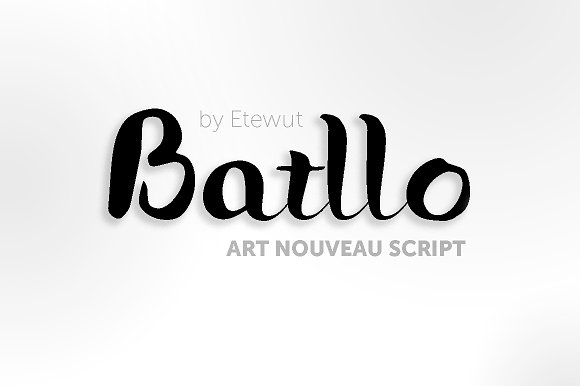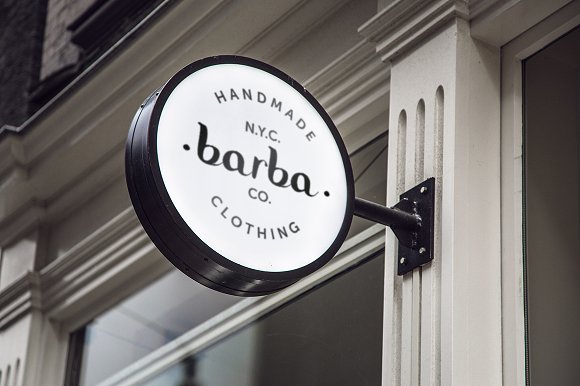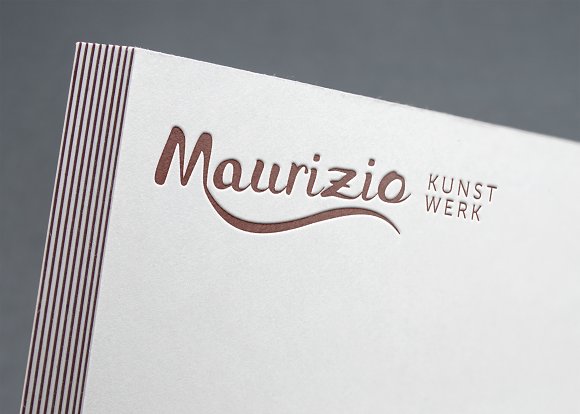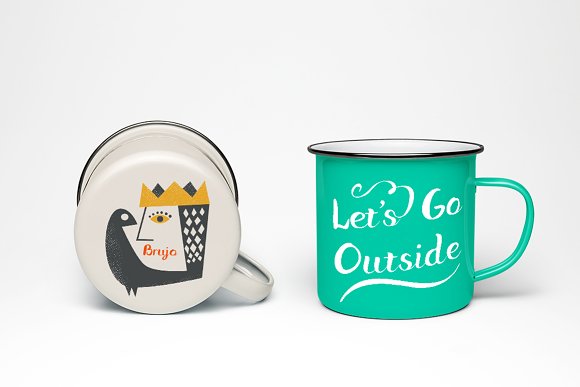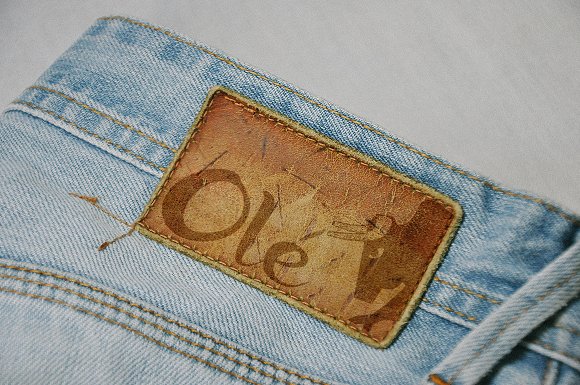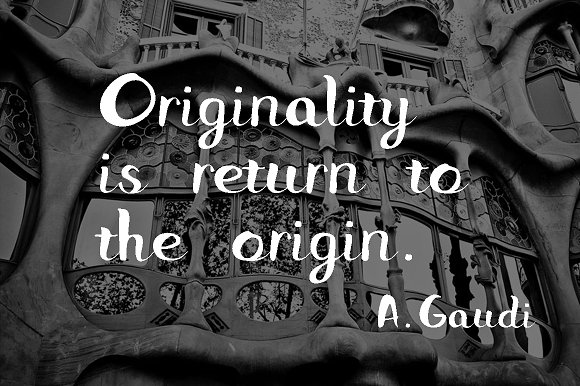
Batllo Font
About Batllo Font
Battllo is an art nouveau script font created by Etewut.
The Battllo font draws it’s inspiration from the architecture by Antonia Gaudi. The Battllo font is created after visiting Casa Battllo, one of the Gaudi museums. In Casa Battllo almost everything is designed like animals, bones or plants from Catalonia.
The philosophy as I understood it was that there is no wrong you, only a proper place. This translates into a font where every glyph is unique.